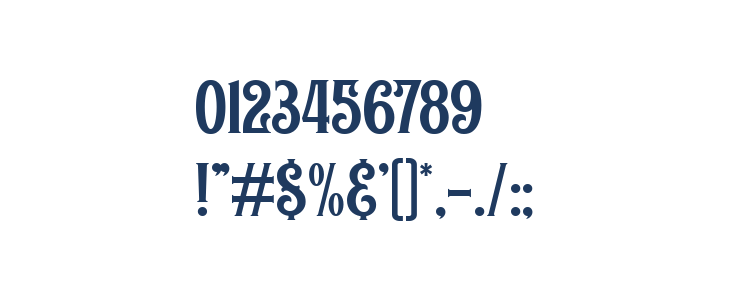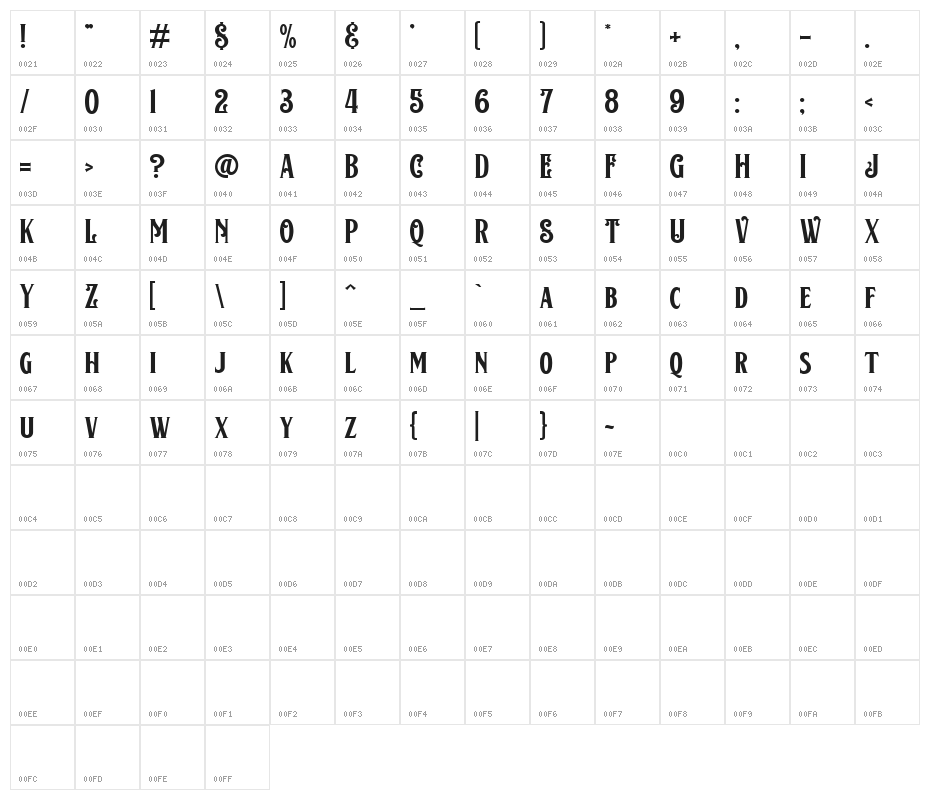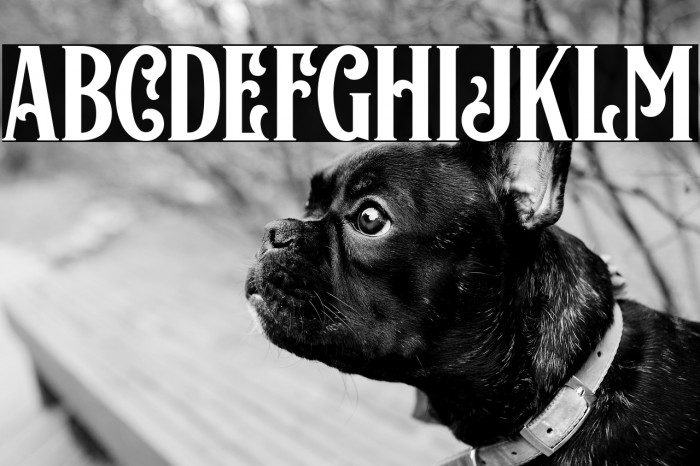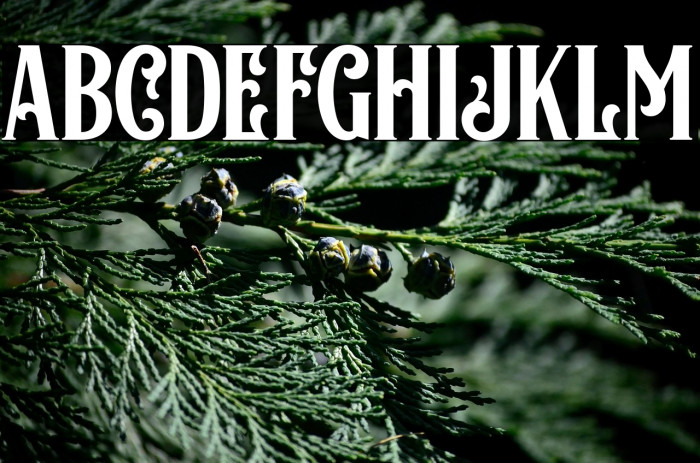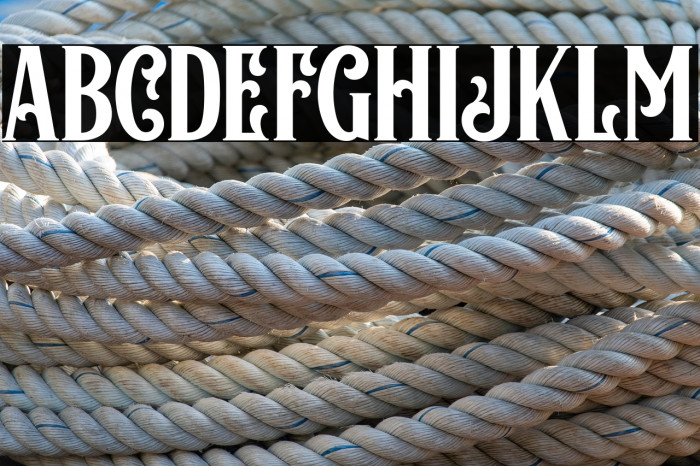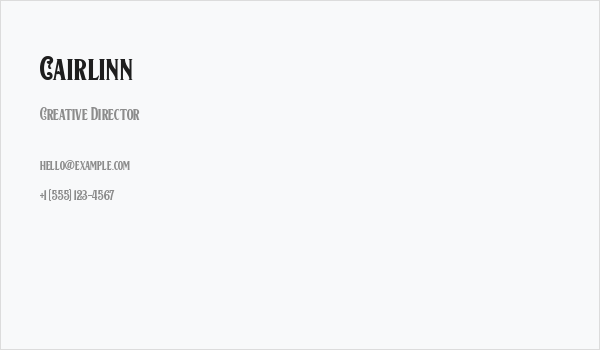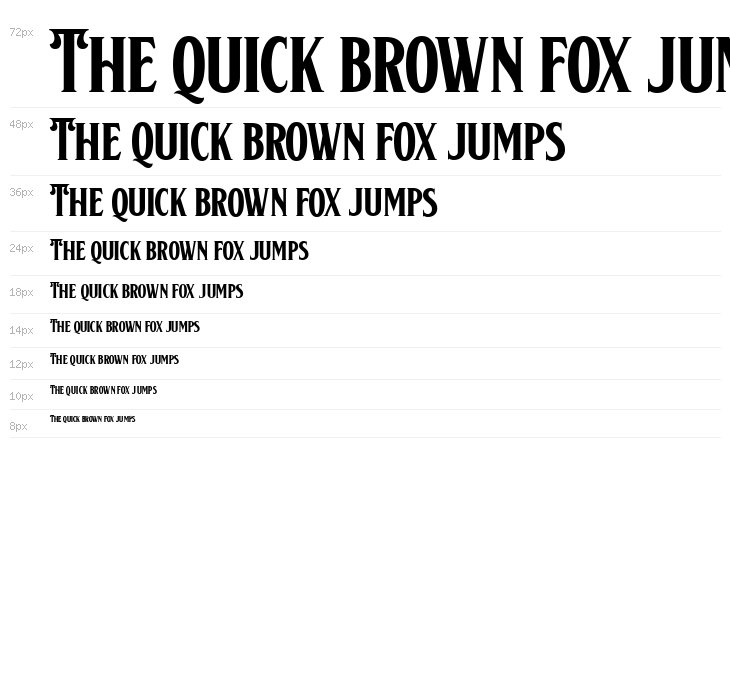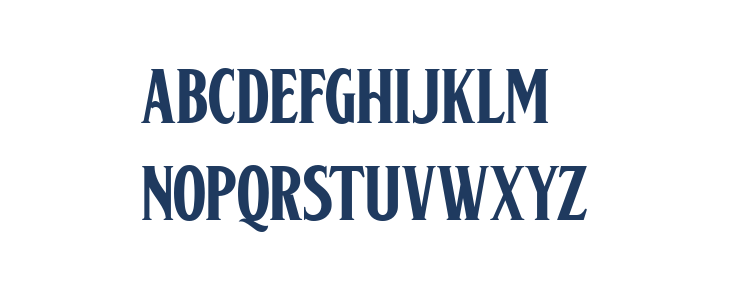
Cairlinn Font
Cairlinn Description
This font features a bold and decorative style with unique, intricate details on each character. The uppercase letters have a distinct flair with ornamental elements that add a touch of elegance and sophistication. The numbers and special characters maintain this decorative theme, making the font suitable for eye-catching designs. Its bold weight and high contrast in stroke thickness contribute to its striking appearance, while the character spacing is relatively normal, ensuring readability despite its ornate design.
| Proposed Projects | Ideal for branding, poster design, headlines, and any project requiring a dramatic and elegant typeface. |